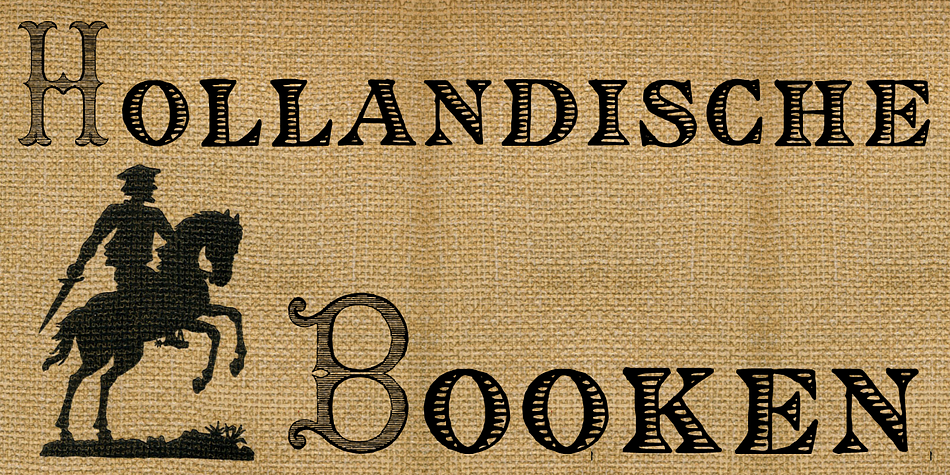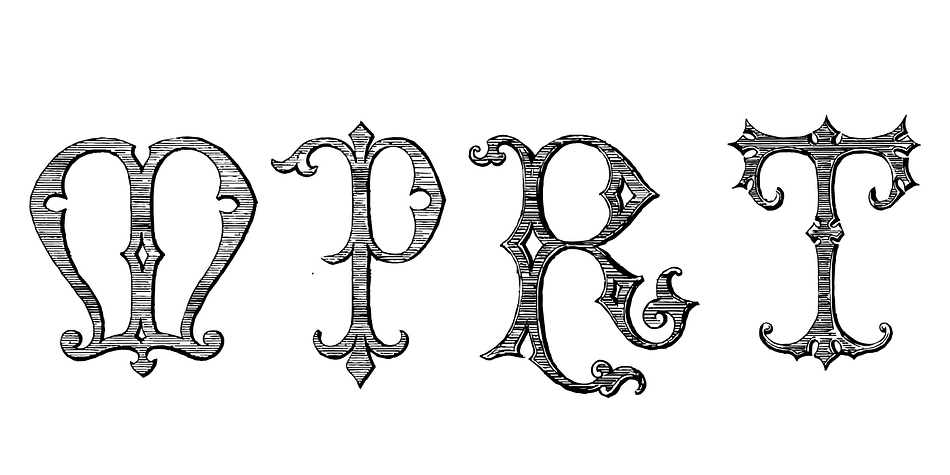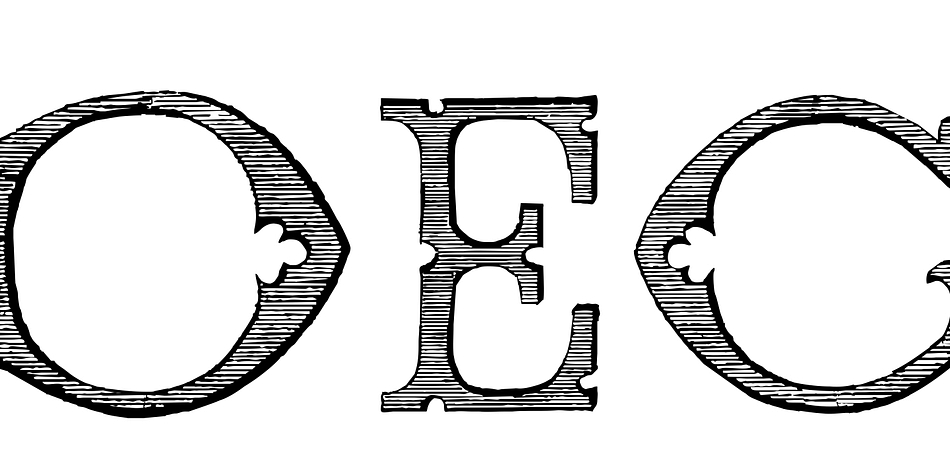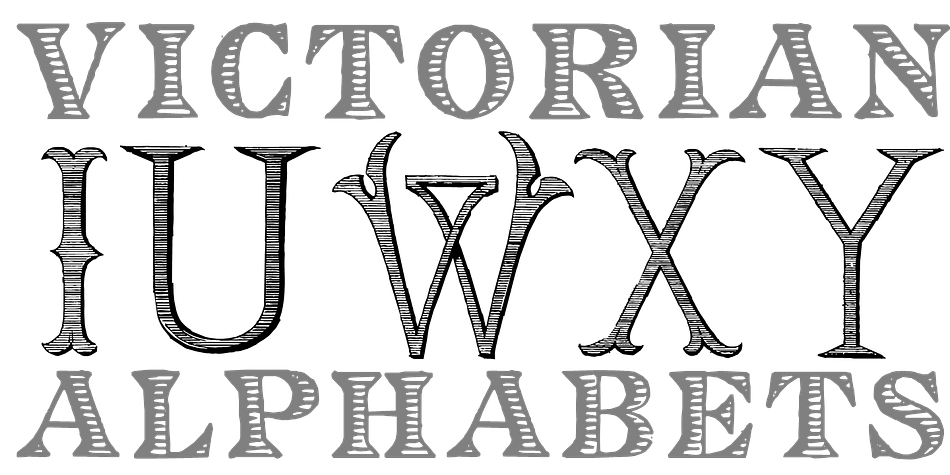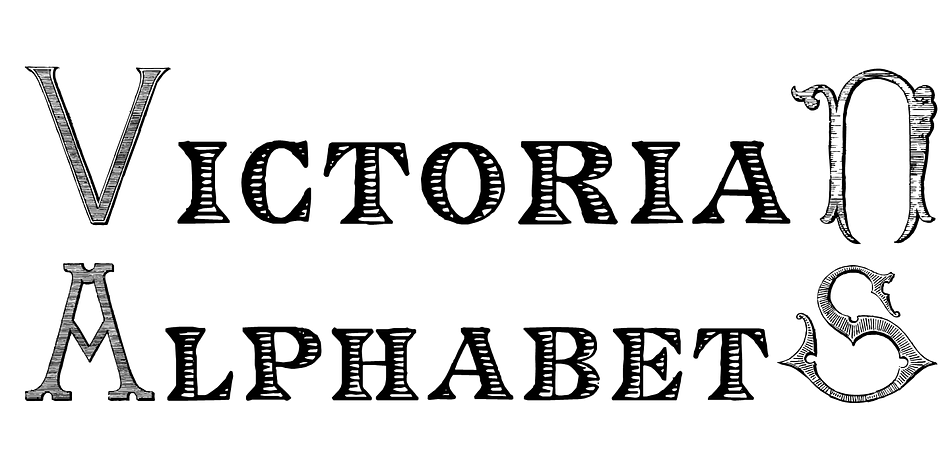
Victorian Alphabets is a historical font published by Intellecta Design.
Victorian Alphabets is a incoming family of complete victorian style alphabets, researched and developed upon a comprehensive number of vintage books, magazines and catalogues from XIX century. A partnership font between Intellecta Design and Monocracy Types (Paulo W)